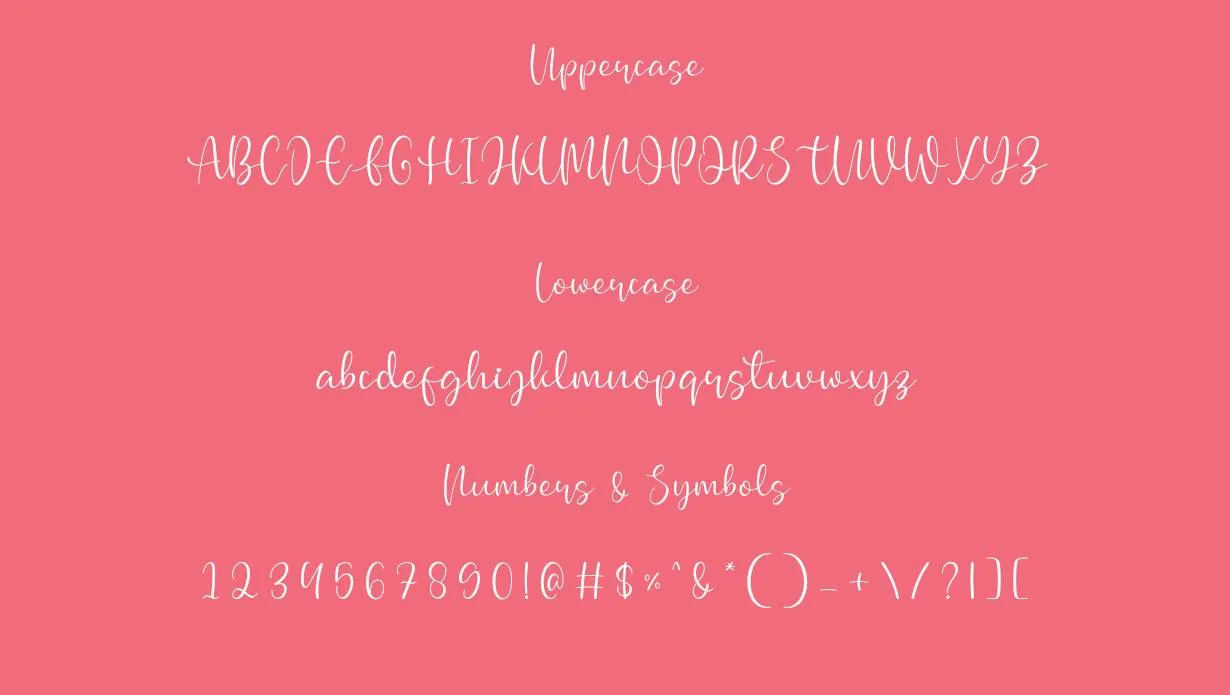
Prepare to be whisked away by the exquisite Buttey Honey Calligraphy Font, a script typeface that exudes grace and charm with its elegant and romantic design. Delve into the world of beauty and sophistication that this font offers, perfect for those seeking a touch of refinement in their projects. Discover the allure of Buttey Honey for yourself and elevate your designs to new heights!
It’s often chosen for wedding invitations, love-themed branding, and designs that aim to evoke a sense of warmth and affection.
Buttey Honey Calligraphy Font Family
This font’s cursive style and delicate strokes create a feeling of romance and charm in your projects.